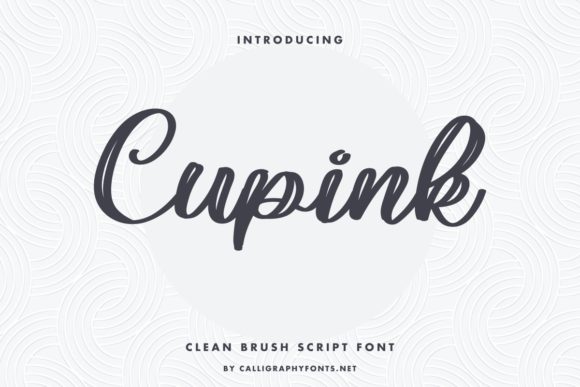
Indulge in the captivating allure of Cupink, the exquisite script font that evokes a symphony of style and sophistication. A testament to the timeless artistry of calligraphy, Cupink dances across your designs with a captivating elegance that will leave you breathless.
Crafted with meticulous precision and encoded with PUA, Cupink empowers you to unleash your creativity effortlessly. Its comprehensive glyphs and swashes await your command, ready to transform your designs into masterpieces.
Visualize your name, quotes, and logos adorned in the mesmerizing swirls and curves of Cupink. It's the perfect font for injecting personality and charm into your projects, whether you're designing invitations, branding materials, or simply expressing your heartfelt sentiments.
With Cupink, the ordinary becomes extraordinary. Its ability to elevate your designs is undeniable, adding an air of sophistication that will make your creations stand out from the crowd.
So why settle for the mundane when you can embrace the captivating allure of Cupink? Allow its enchanting brush strokes to inspire and captivate, and witness the transformation of your designs into works of breathtaking beauty.